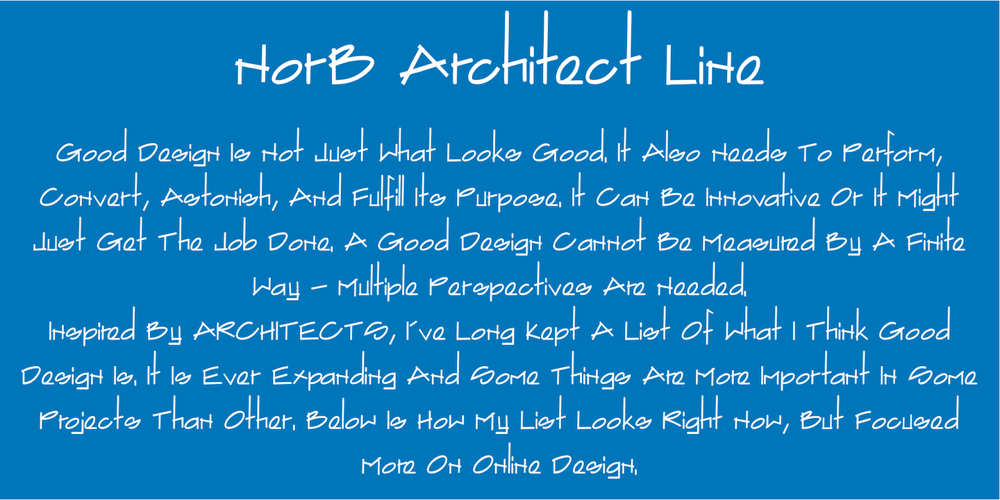
NorB ARCHITECT LINE Font Family was designed by Nor Eddine Bahha and published by NorFonts. NorB ARCHITECT LINE contains 8 styles and family package options. NorB Architect Line architectural fonts will add a beautiful architectural hand-lettering style to all your CAD project drawings. Architects have always wanted their CAD drawings to look more like they were drawn by hand, rather than by a CAD program. These AutoCAD fonts are the first step in bringing back that “artistic hand-drawn” feel to your CAD drawings or any graphic design project that can use true type fonts. They even can be used with any word processing program for text and display use, print and web projects, apps and ePub, comic books, graphic identities, branding, editorial, advertising, scrapbooking, cards and invitations and any casual lettering purpose… or even just for fun!NorB Architect Line is a retracing from scratch of my “NorB Architect” font coming in a sharp and round look, featuring small caps with some long stems of the following letters: b, d, f, h, k, l so resulting in more dynamic lettering font. It comes with 8 weights: Regular Italic Bold Bold Italic Round Round Italic Bold Round Bold Italic Round Note: The Italic versions are intentionally set to 20° rather to 12° for more dynamic lettering look.